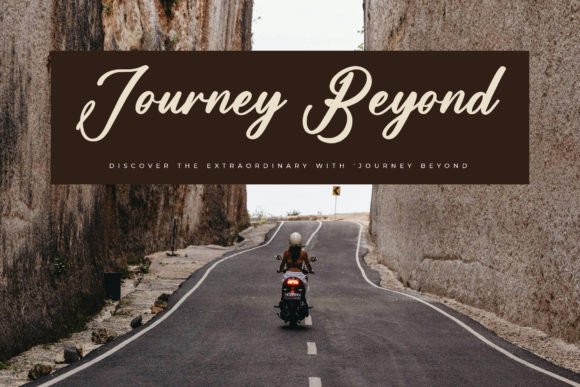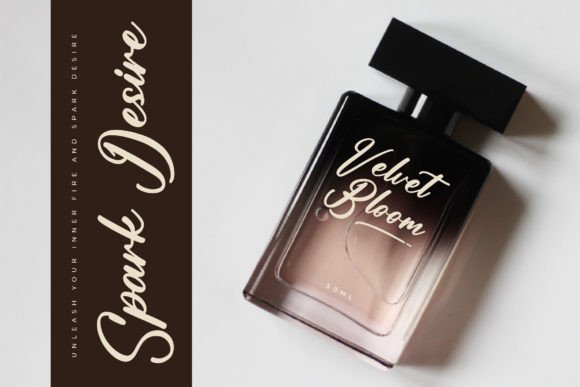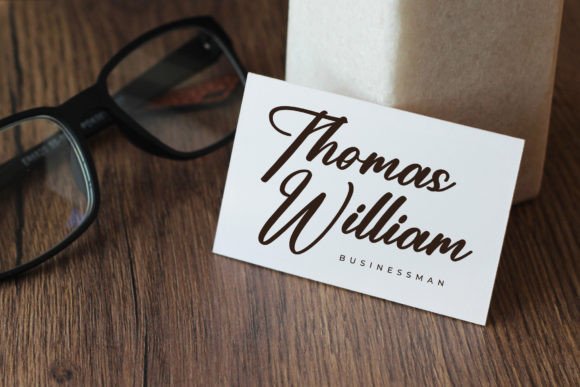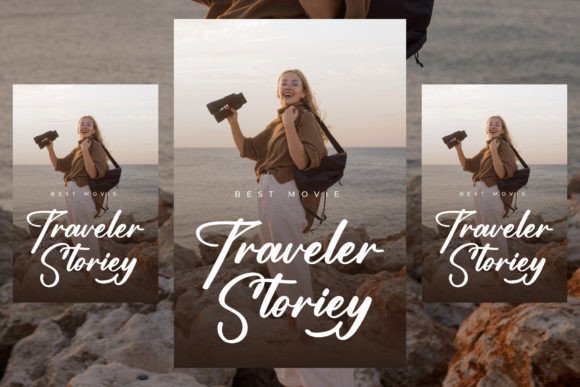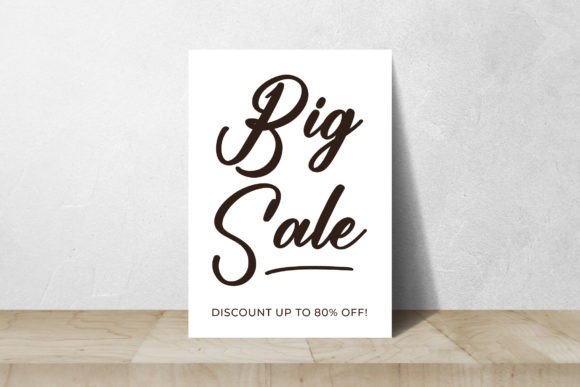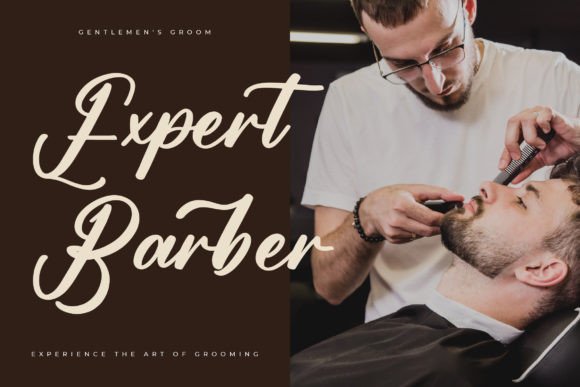
Introducing Antholia Riechgan Font: Elevate Your Designs with Luxury and Sophistication
In the world of typography, fonts play a crucial role in conveying the tone and aesthetic of a design. For designers and crafters seeking to add a touch of luxury and sophistication to their projects, Antholia Riechgan Font is an exceptional choice. This modern bold script font, crafted by Letterena, is perfect for a wide range of applications, from logos and branding projects to homeware designs, product packaging, and more.
What Makes Antholia Riechgan Font Stand Out?
Antholia Riechgan Font is a luxury script font that exudes elegance and refinement. Its modern bold script style makes it an ideal choice for designers looking to create stunning visual content that commands attention. The font’s versatility allows it to be used across various mediums, including digital and print materials.
Key Features of Antholia Riechgan Font
- Modern Bold Script Style: Antholia Riechgan Font boasts a contemporary bold script style that adds a touch of sophistication to any design.
- Luxury and Elegant: The font’s luxurious and elegant feel makes it perfect for high-end branding projects, packaging, and marketing materials.
- Highly Versatile: Antholia Riechgan Font can be used across various mediums, including logos, branding projects, homeware designs, product packaging, and more.
- Easy to Read: Despite its bold style, the font remains easy to read, making it suitable for body text and headlines.
Antholia Riechgan Font is suitable for a diverse range of projects, including:
- Logos and Branding Projects: Create a lasting impression with a luxurious logo that reflects your brand’s personality.
- Homeware Designs: Add a touch of elegance to your homeware designs, including stationery, wall art, and decorative items.
- Product Packaging: Elevate your product packaging with a sophisticated font that communicates luxury and quality.
- Mugs, Quotes, Posters, and More: Use Antholia Riechgan Font to create stunning quotes, posters, mugs, and other promotional materials.
Why Choose Antholia Riechgan Font?
With Antholia Riechgan Font, you can:
- Enhance Your Brand’s Image: Convey a sense of luxury and sophistication with a high-end font that reflects your brand’s values.
- Stand Out from the Crowd: Use a unique and distinctive font that sets your designs apart from the competition.
- Streamline Your Design Process: With its ease of use and versatility, Antholia Riechgan Font can help you save time and effort in your design workflow.
Antholia Riechgan Font is a luxury script font that offers designers and crafters a powerful tool for creating stunning visual content. Its modern bold script style, elegance, and versatility make it perfect for a wide range of projects. Whether you’re looking to elevate your brand’s image, stand out from the crowd, or simply add a touch of sophistication to your designs, Antholia Riechgan Font is an excellent choice.